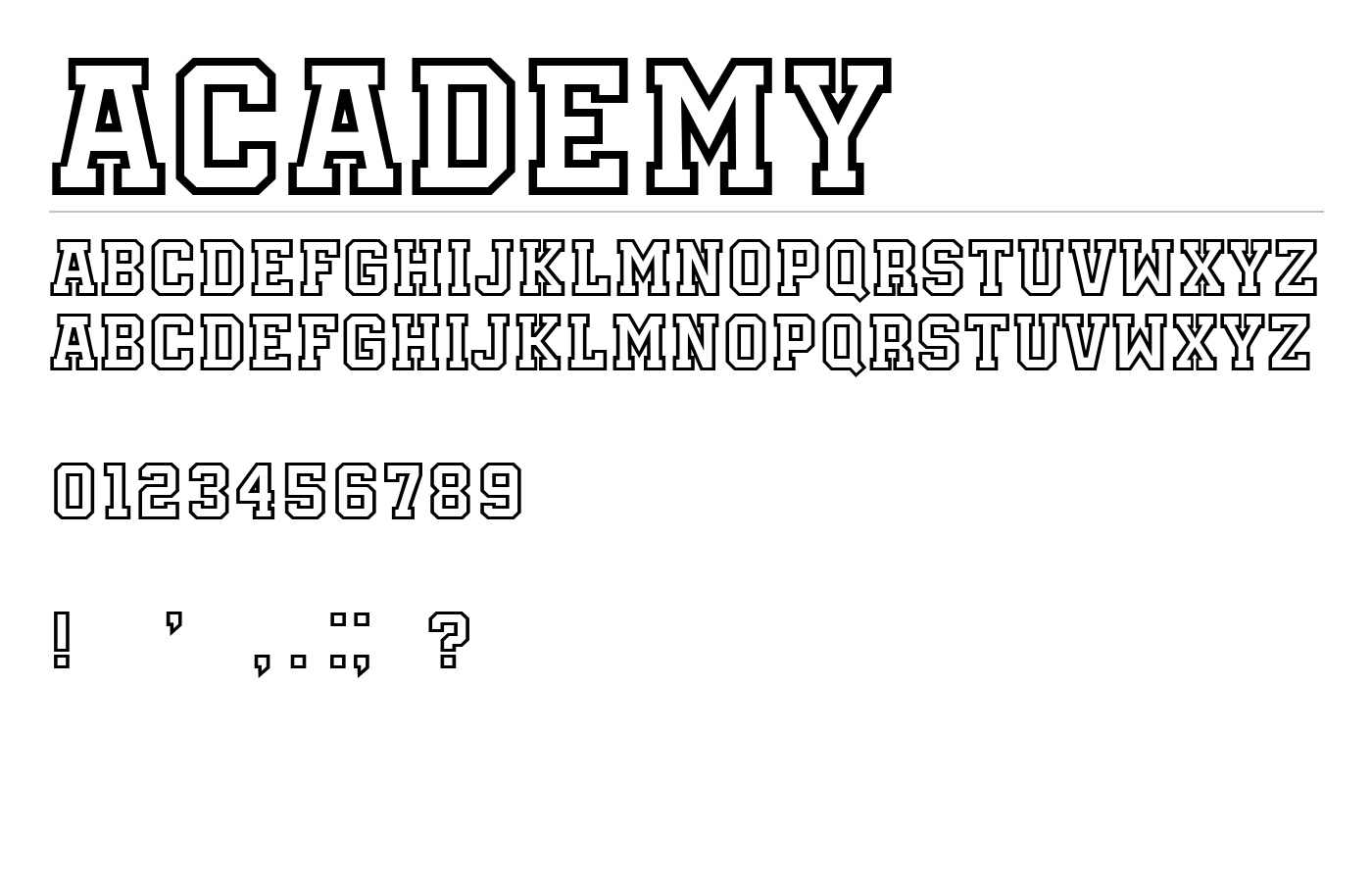
Academy Font is a bold, condensed slab serif typeface with a strong, collegiate vibe, featuring thick, blocky letterforms with clear geometric shapes and sharp edges. Its high contrast outlined style and all-uppercase design make it perfect for sports uniforms, varsity branding, posters, and headlines that need to convey strength and tradition in a visually impactful way.
Academy Font
About Academy Font
| Font family | Academy Font |